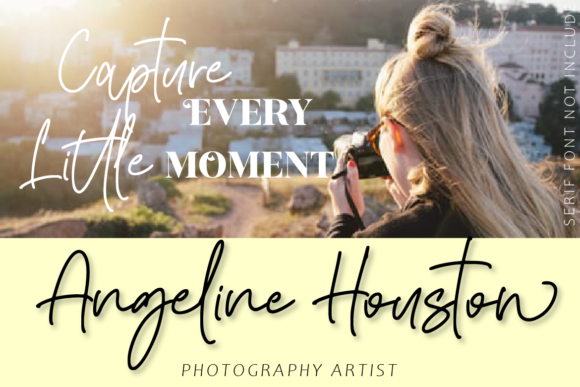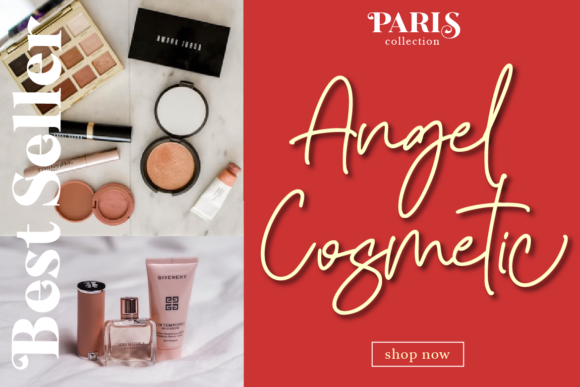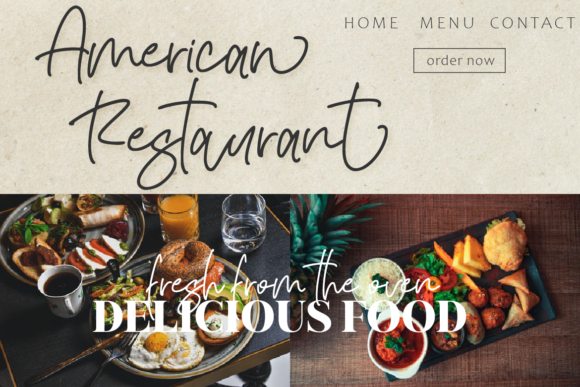
Introduction to Sendertime Font
There’s something magical about the moment when a design project comes together – the perfect balance of colors, the delicate dance of typography, and the emotional connection with the audience. As a designer, you know that finding the right font can make all the difference between a good design and a great one. That’s where the Sendertime Font comes in – a stunning light handwritten font that adds a luxury spark to any creative project.
Whether you’re working on a high-end brand identity, a wedding invitation, or a social media campaign, the Sendertime Font is the perfect design resource to elevate your work. With its unique feel and stunning impact, this beautiful font is sure to leave a lasting impression. And the best part? It’s PUA encoded, making it easy to access all the amazing glyphs and ligatures you need to create something truly special.
Key Features of Sendertime Font
- High-quality design: This font features a unique and stylish design, perfect for creative projects that require a touch of elegance.
- Transparent background: Sendertime Font has a transparent background, allowing designers to easily place it over any image or background.
- High-resolution graphics: The font is designed with high-resolution graphics, ensuring that it looks sharp and clear even at large sizes.
- Perfect for creative projects: Sendertime Font is ideal for use in creative projects, such as graphic design, digital art, and web design.
- Easy to customize: The font’s unique design and transparent background make it easy to customize and manipulate in design software.
Honest Review: Sendertime Font
I recently stumbled upon the Sendertime Font and was eager to put it to the test in my latest creative project. As a designer, I’m always on the lookout for high-quality fonts to elevate my work, and I’m happy to report that Sendertime Font delivers.
What works well: ✨ The font is available for free download, which is always a plus in my book. The design is clean and modern, making it perfect for a variety of creative projects. The transparent background is also a nice touch, allowing for easy integration into any design.
Limitations: ⚠️ While the font is a great addition to any design resource, I did notice that it’s not as versatile as some other fonts on the market. It’s best suited for modern and clean designs, but may not be the best choice for more traditional or ornate projects.
Overall, I’m impressed with the Sendertime Font and would definitely recommend it to fellow designers. It’s a great addition to any design resource and is sure to elevate your creative projects.
Getting the Most Out of Sendertime Font
To get the most out of Sendertime Font, use it in conjunction with other design elements to create a cohesive and visually appealing design. Experiment with different font sizes, colors, and arrangements to find the perfect balance for your creative project.
Sendertime Font is commonly used in a variety of design contexts, including logos, brochures, and social media graphics. Its high-quality design and transparent background make it an ideal choice for designs that require a professional and sophisticated look.
Great Vibes is a beautiful, handwritten font with a transparent background, making it perfect for designs that require a subtle look. It’s ideal for creating posters, flyers, or social media graphics that need a fun and creative touch. Download Great Vibes for free and use it on any project that requires a playful and carefree vibe. Compared to Sendertime Font, Great Vibes has a more casual and laid-back look, making it suitable for designs that require a relaxed feel.
Yes, the Sendertime Font has a transparent background, making it ideal for use with custom backgrounds, textures, or other design elements. This feature allows for seamless integration into creative projects.
What makes the Sendertime Font a high-quality design resource?
The Sendertime Font is designed with precision and attention to detail, resulting in a high-quality design resource that is suitable for a wide range of creative projects. Its clean and modern design makes it an excellent choice for designers looking for a professional font.